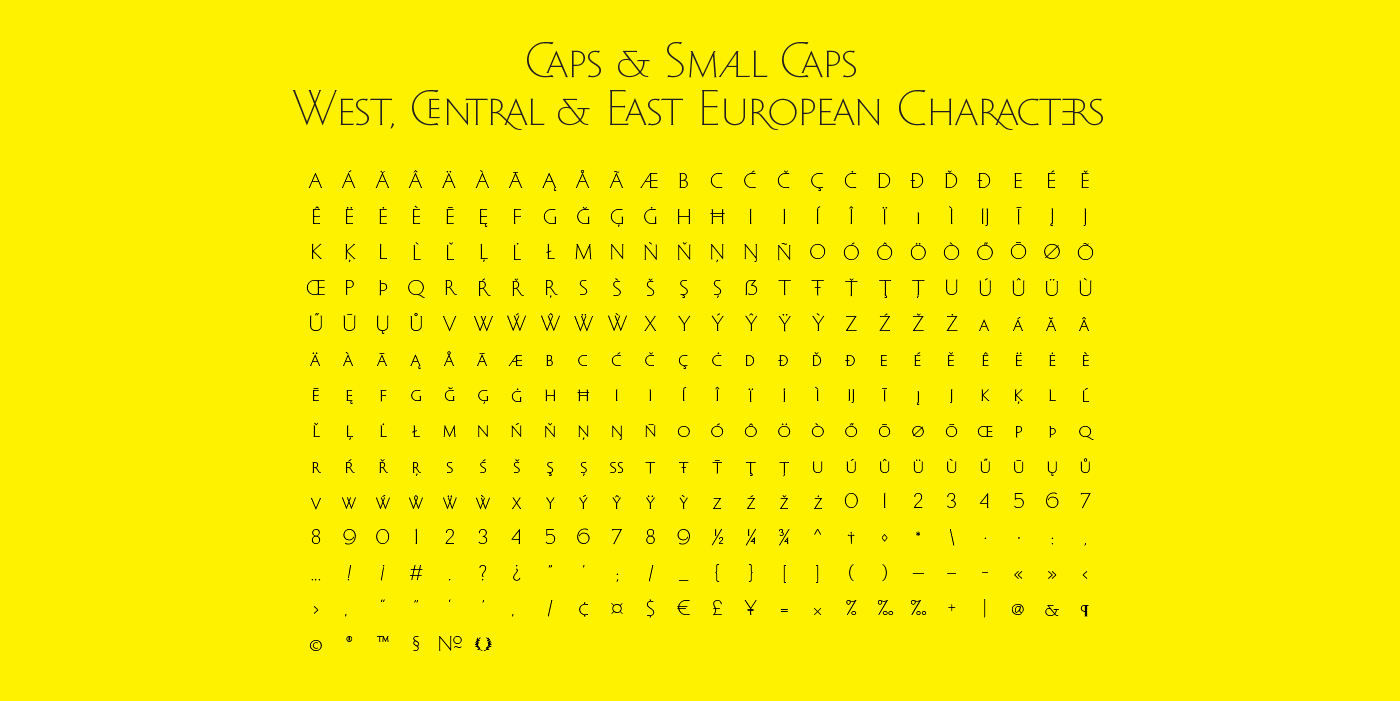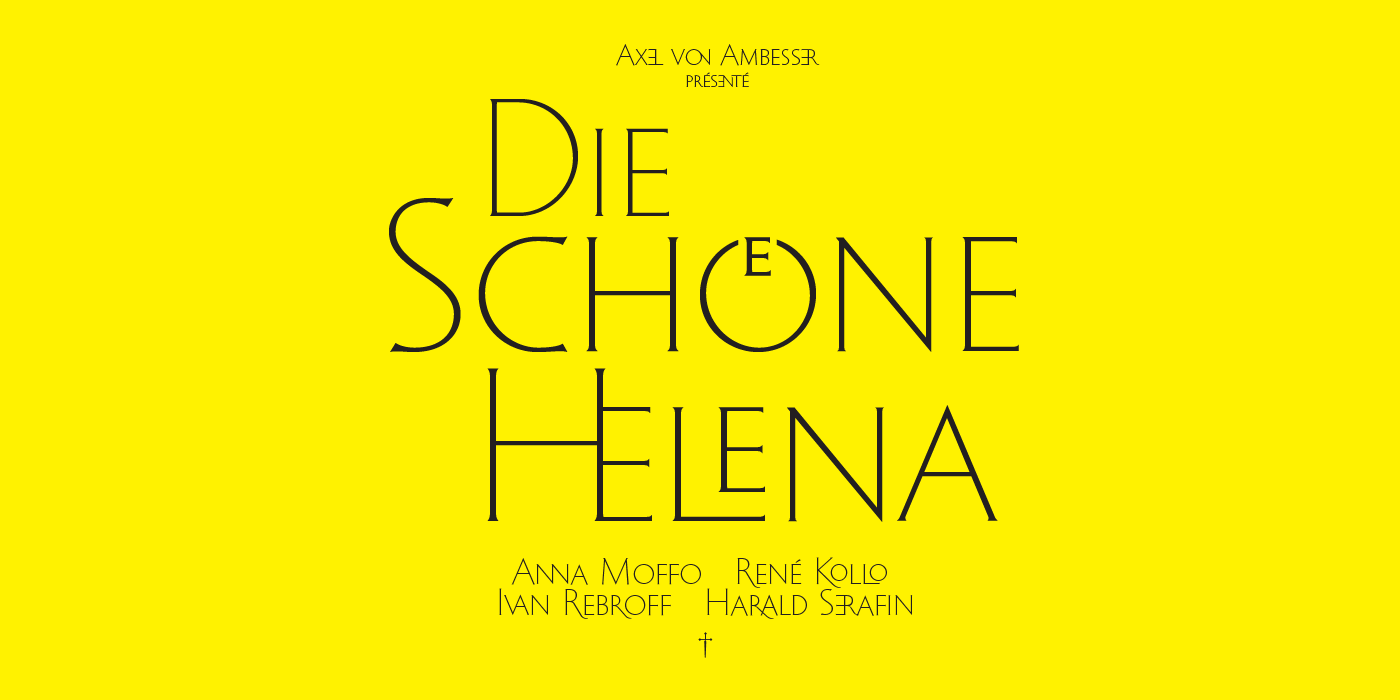
Imperija Roman Typeface
Imperija Roman is a display typeface inspired by stone engraved lettering. Supporting west, central and east European languages it contains over one-hundred discretionary ligatures and a stylistic set for old style diacritics. The original letters were drawn from a memorial engraving in Ljubljana, Slovenia. Further development and several iterations later, Imperija Roman has a flowing organic feel while staying true to the rigid constraints of stone-cut letters. The alternative diacritics in stylistic set one were included to give the user more options for a historical feel to the lettering. The discretionary ligatures also offer a huge range of variation and were drawn based off of historical Roman sources and common frequency digraphs in major European languages.